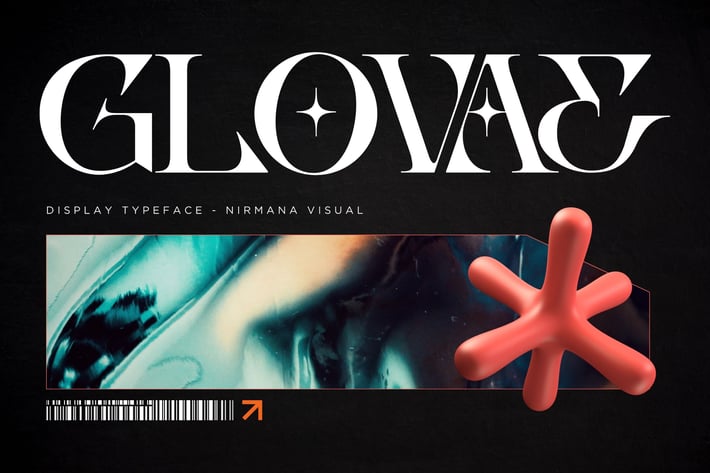
Glovae Modern - Logo Font
Glovae Modern Font offers beautiful typographic harmony for a diversity of design projects, including logos & branding, social media posts, advertisements & product designs.